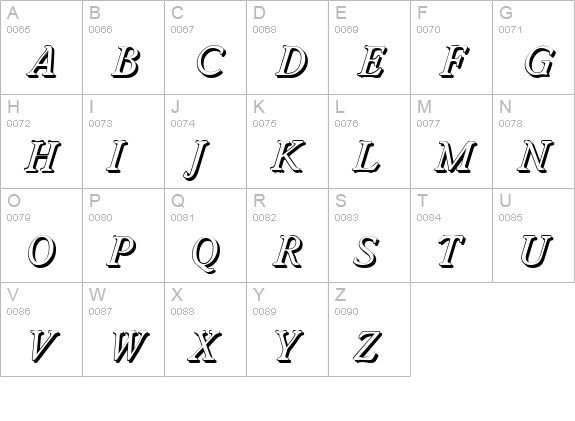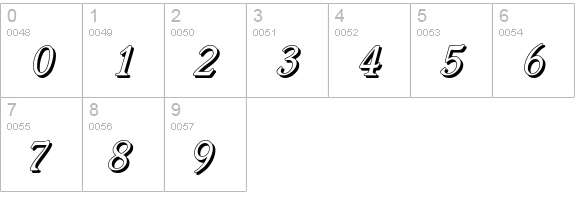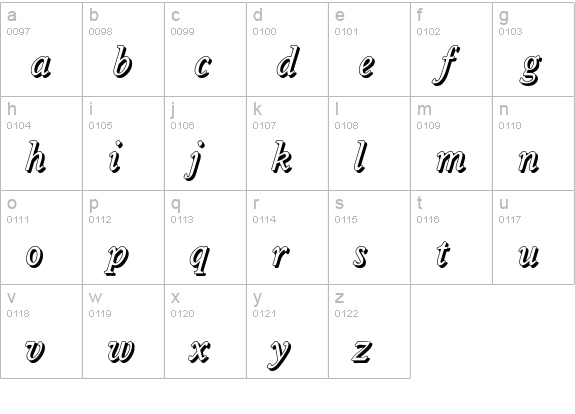
WorcesterShadow-Italic Font Details
WorcesterShadow-Italic is a distinctive, italic variant in the WorcesterShadow typeface family \xE2\x80\x94 well suited to design and typography projects.
WorcesterShadow-Italic font is an elegant and sophisticated typeface that exudes a sense of mystery and intrigue. Its slanted, shadowed design adds depth and character to any text, making it perfect for adding a touch of drama to your projects. Whether you're designing a poster, logo, or invitation, WorcesterShadow-Italic font is sure to make a bold statement. The best part? WorcesterShadow-Italic font is completely free to download at FontsMarket.com. You can easily access this unique and eye-catching font to enhance your designs and captivate your audience. Don't miss out on the opportunity to elevate your projects with WorcesterShadow-Italic font - download it today and let your creativity shine!